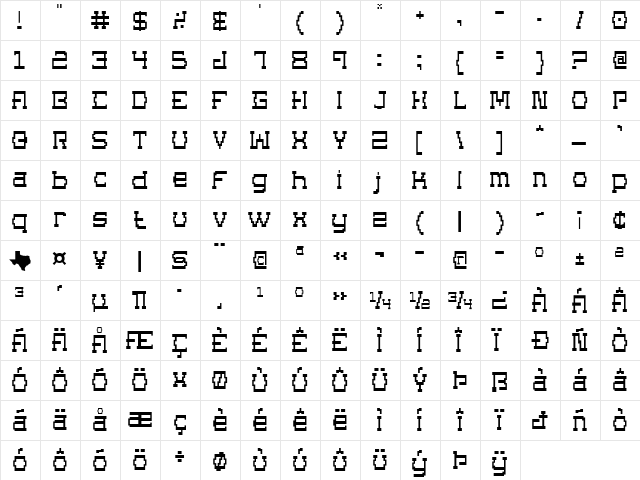
Superago Regular Font Preview
Superago Regular
Design Context for Superago Typeface
Superago is a composed and adaptable typeface that performs quietly and consistently across a wide range of design contexts.